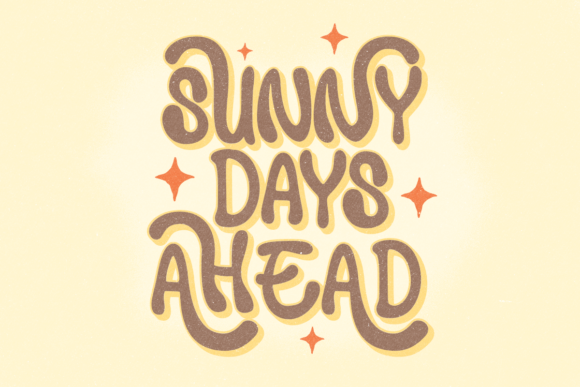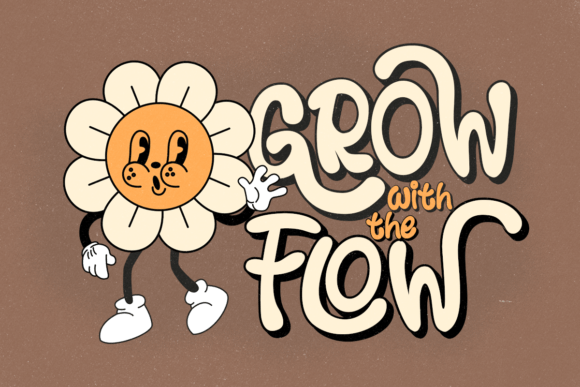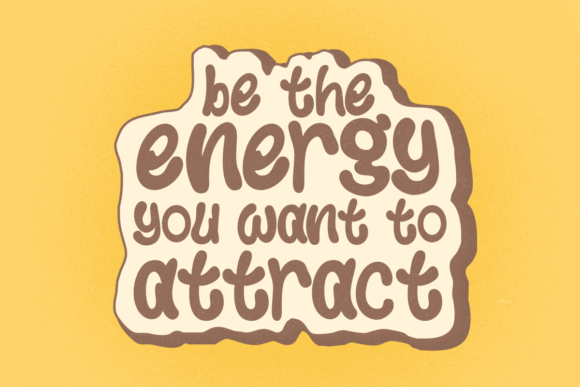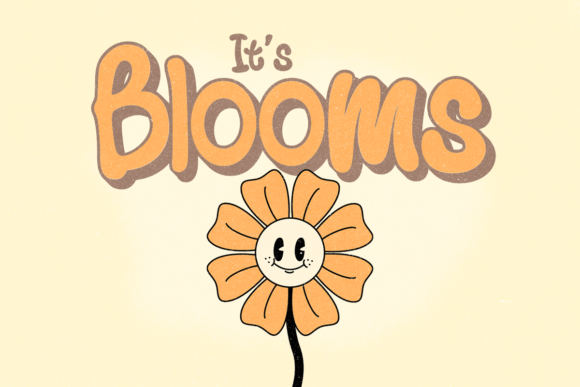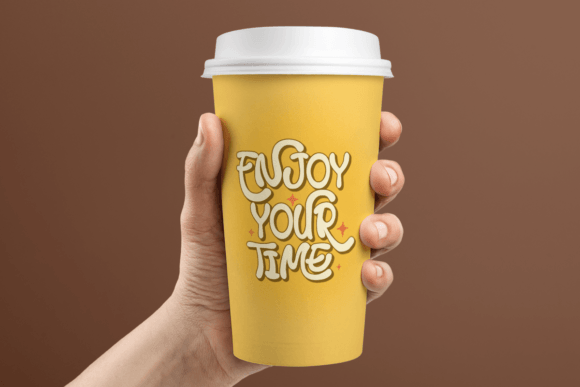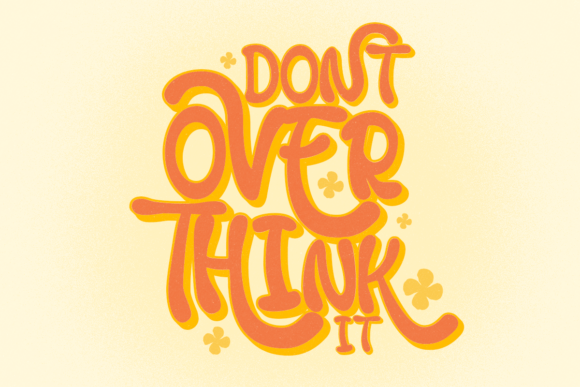
Introduction to Mango Lover Font
Have you ever been working on a creative project, and suddenly, you’re stuck on finding the perfect font to bring your vision to life? You browse through countless options, but nothing seems quite right. That’s when you stumble upon the perfect gem – Mango Lover Font.
With its whimsical and organically handwritten sans serif style, Mango Lover Font is a game-changer for designers looking to add a touch of personality to their work. But what sets it apart from other fonts is its versatility – it comes with its own Shadow version, allowing you to add depth and character to your text with ease.
Key Features of Mango Lover Font
- Unique, hand-drawn design with a tropical twist, perfect for creative projects
- Includes 6 high-quality font styles with transparent backgrounds for seamless integration
- Perfect for designers looking for a unique design resource to elevate their projects
- Includes a comprehensive character set, including uppercase and lowercase letters, numbers, and punctuation marks
Honest Review: Mango Lover Font
I recently came across the Mango Lover Font and I must say it’s a nice addition to my design resource collection. The font is available for free download, which is always a bonus. It’s a high-quality font with a beautiful, handwritten feel that’s perfect for creative projects.
What works well with this font is its versatility. It can be used for a variety of projects, from invitations and cards to logos and branding materials. The font also comes with a transparent background, which makes it easy to use on any background without worrying about it getting lost.
The font is a bit on the playful side, which can be both a strength and a weakness. Here are some things to consider:
- ⚠️ Limited character set: The font doesn’t have a full character set, which means you may not be able to use it for projects that require a lot of text.
- ⚠️ Not suitable for formal projects: The font’s playful feel may not be suitable for formal or professional projects, so use it sparingly.
Overall, I think the Mango Lover Font is a great addition to any designer’s collection. While it may have some limitations, it’s a high-quality font that’s perfect for creative projects and free to download.
Getting the Most Out of Mango Lover Font
To get the most out of the Mango Lover Font, try combining it with other design resources, such as icons and graphics. This will help you create a cohesive and visually appealing design for your project.
The Mango Lover Font is ideal for a variety of projects, including:
- Print materials (business cards, brochures, etc.)
With its unique and creative design, the Mango Lover Font is sure to elevate your project to the next level.